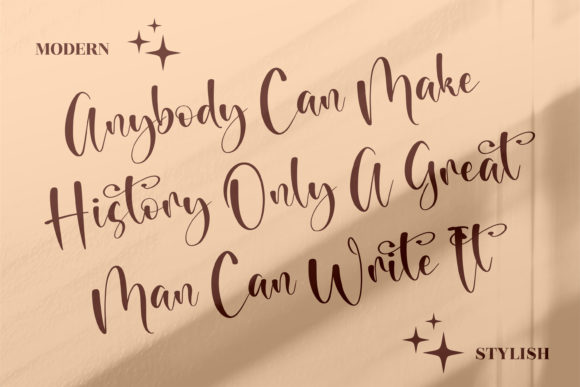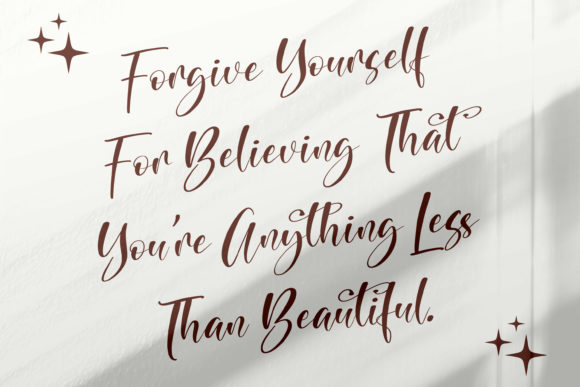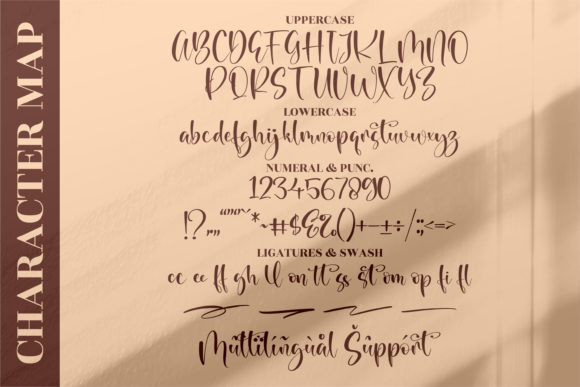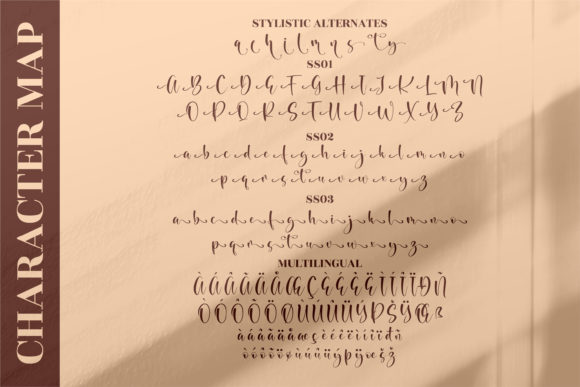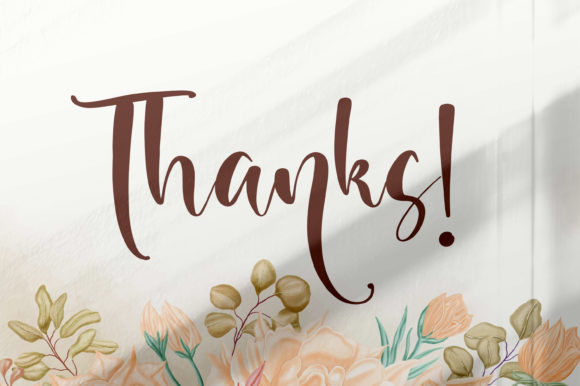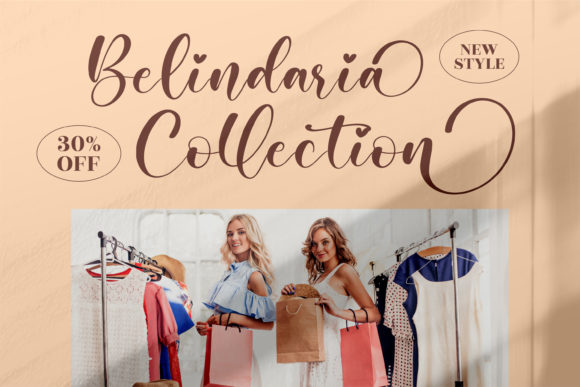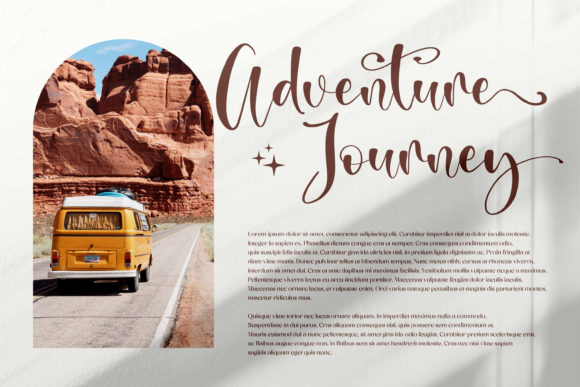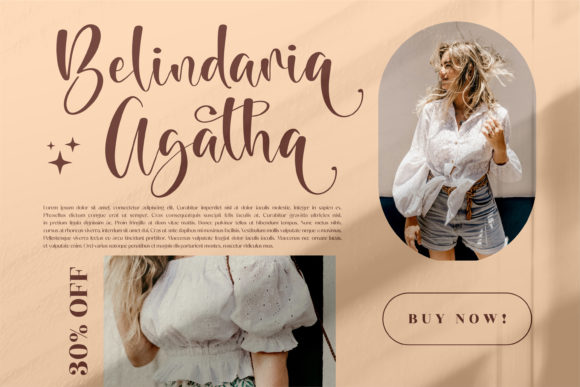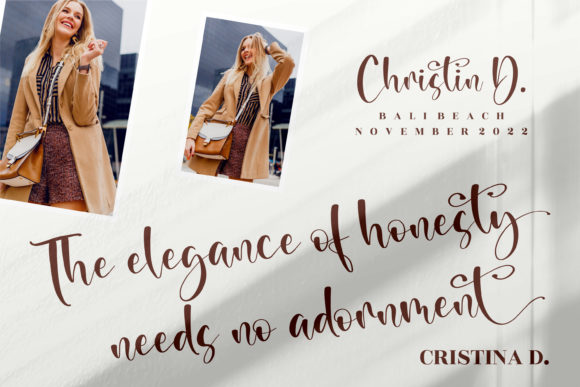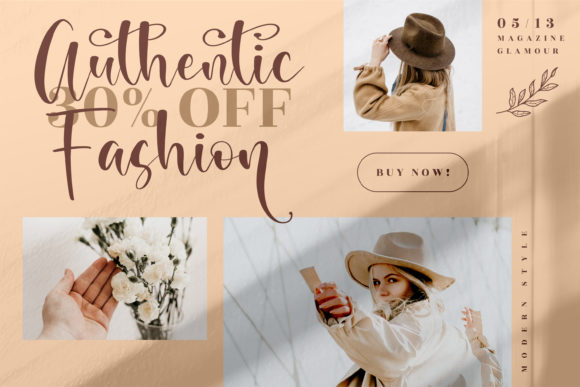
Beauty Brand Font
About Beauty Brand Font
Beauty Brand is a lovely and timeless handwritten font that exudes elegance and style. With its beautiful letterforms and delicate strokes, it is the perfect choice for creating eye-catching logos, branding materials, and quotes.
The timeless appeal of Beauty Brand makes it a versatile font that can be used in various design projects. Whether you’re working on a logo design, creating a brand identity, or designing quotes for social media, Beauty Brand adds a touch of sophistication and charm.
One of the standout features of Beauty Brand is its PUA encoding. This means that you can easily access all of the glyphs and swashes, allowing you to customize and personalize your designs. With a wide range of decorative elements and alternate characters, you can create unique and eye-catching compositions that perfectly match your creative vision.
When used in logos, Beauty Brand creates a memorable and distinctive brand identity. Its handwritten style adds a sense of authenticity and warmth, while its timeless design ensures longevity and versatility. Whether you’re working on a beauty brand, a fashion label, or a lifestyle business, Beauty Brand brings a touch of elegance and sophistication to your logo design.
In branding materials, Beauty Brand adds a sense of style and personality. Whether it’s on packaging, business cards, or promotional materials, the handwritten font creates a personalized and inviting aesthetic. Its clean and legible letterforms ensure readability while maintaining a unique and handcrafted look.
Beauty Brand is also well-suited for quotes and typography-based designs. Its timeless and elegant appearance enhances the impact of inspirational quotes, messages, and phrases. Whether you’re creating social media posts, posters, or greeting cards, Beauty Brand adds a touch of charm and elegance, making your designs stand out.
Overall, Beauty Brand is a lovely and timeless handwritten font that is perfect for creating eye-catching logos, branding materials, and quotes. Its PUA encoding allows for easy access to glyphs and swashes, giving you the flexibility to customize your designs. Whether you’re working on a personal project or a client’s brand, Beauty Brand adds a touch of sophistication and style that captivates the audience.